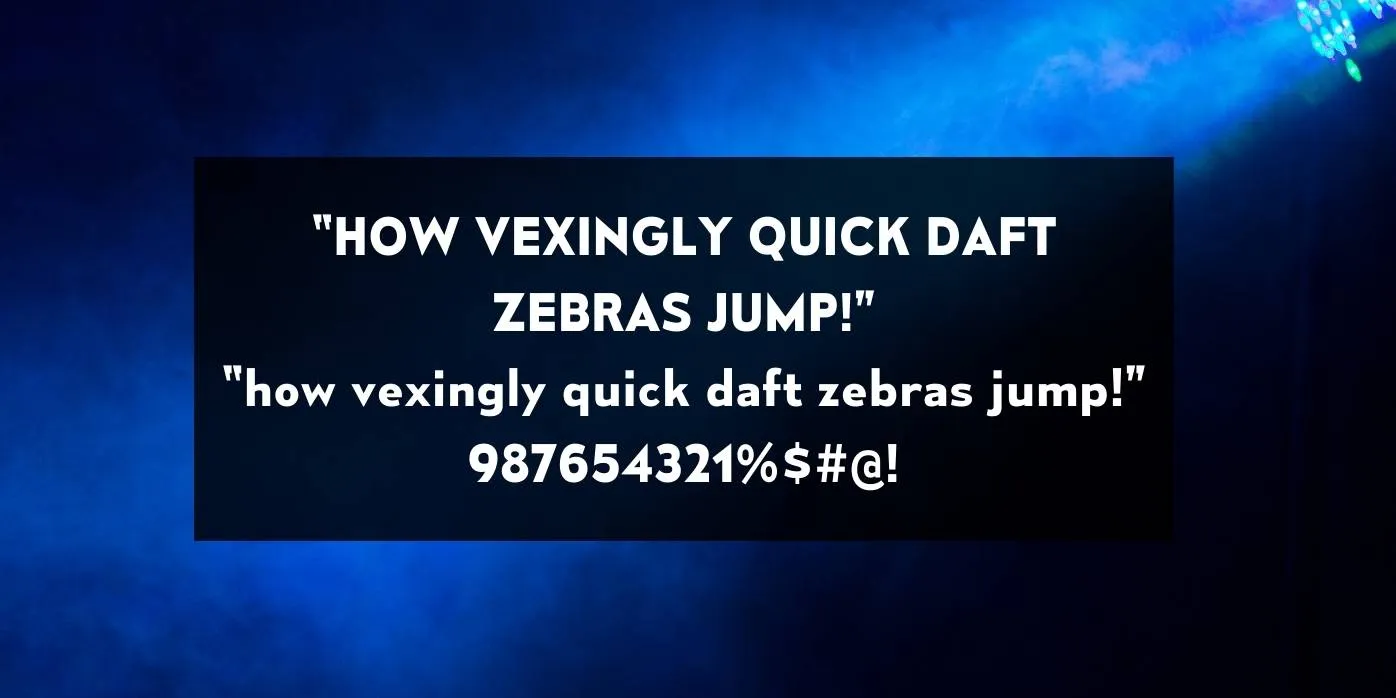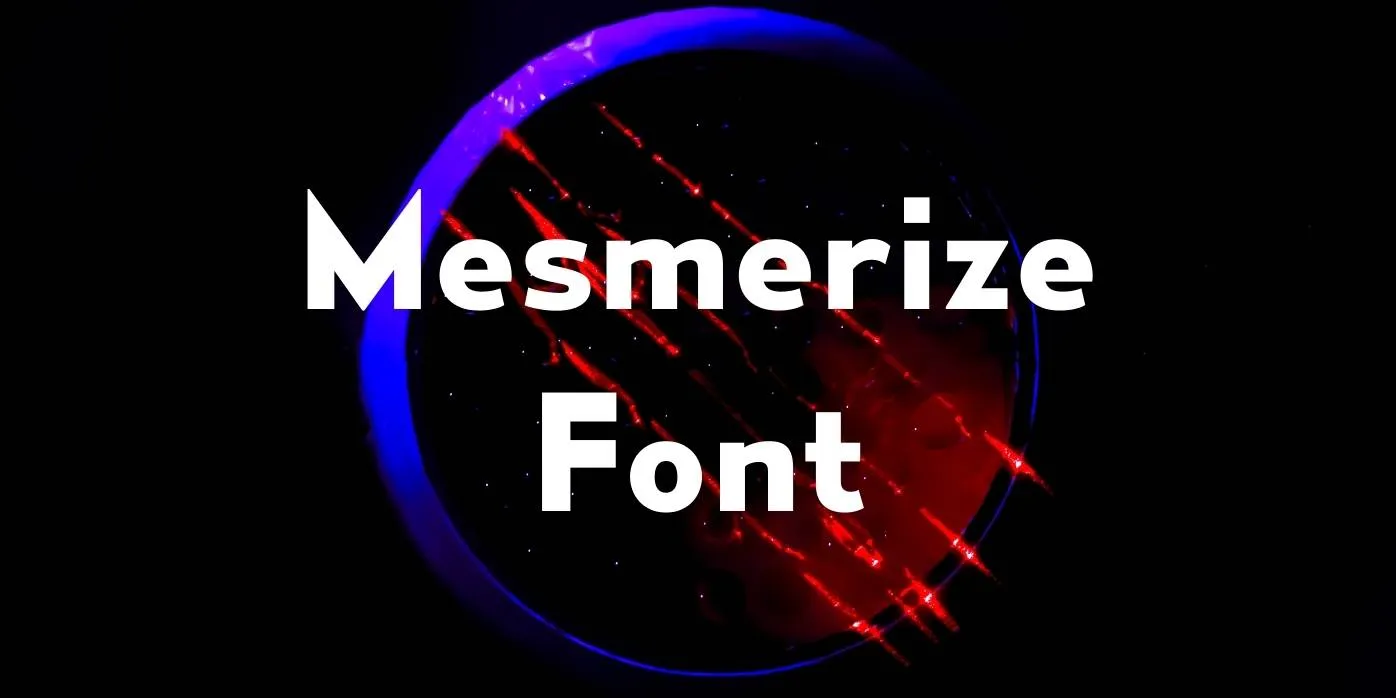
Mesmerize Font
Mesmerize Font is a famous typeface that belongs to the sans serif family. This stunning font was created by Swiss typeface designer Max Miedinger in 1957. This family was released through Typodermic fonts. The name of the font is derived from the German word “mesmerize”, which means “to bewitch”.
This gorgeous font is used extensively in advertising and other forms of commercial printing. It is characterized by its clean, simple lines and its lack of serifs (the small feet at the end of strokes). Mesmerize Font is a highly readable typeface, making it ideal for use in body text. It is perfect for your Adobe Fonts.
Its copy and paste function is best for different designs. For more classic features, you will have to use its alternative nissan font which has the same features. It has been widely used in both digital and print media. If you’re looking for a modern, clean sans serif font, then this typeface is a great choice.